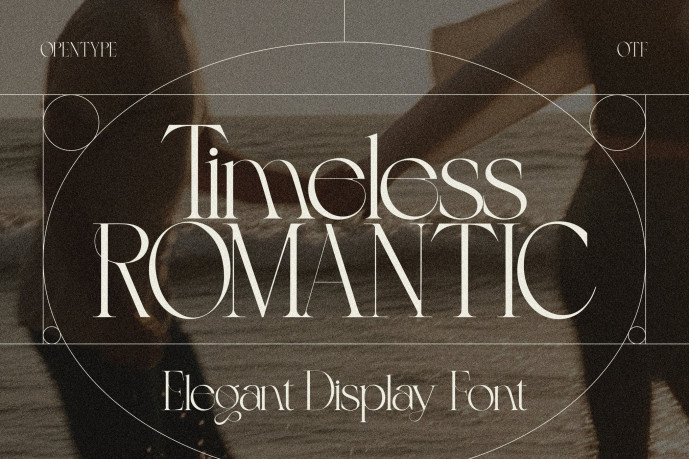
Timeless Romantic Font
Designer: andrewtimothy
Timeless Romantic Font is a sophisticated display serif that marries classic nostalgia with modern editorial flair. Designed for those who seek a balance of high-fashion aesthetics and romantic charm, this font features high-contrast strokes and unique fluid shapes that make every word look like a custom piece of art.
Whether you are designing a high-end brand identity or a dreamy wedding suite, Timeless Romantic provides that “expensive” look effortlessly.